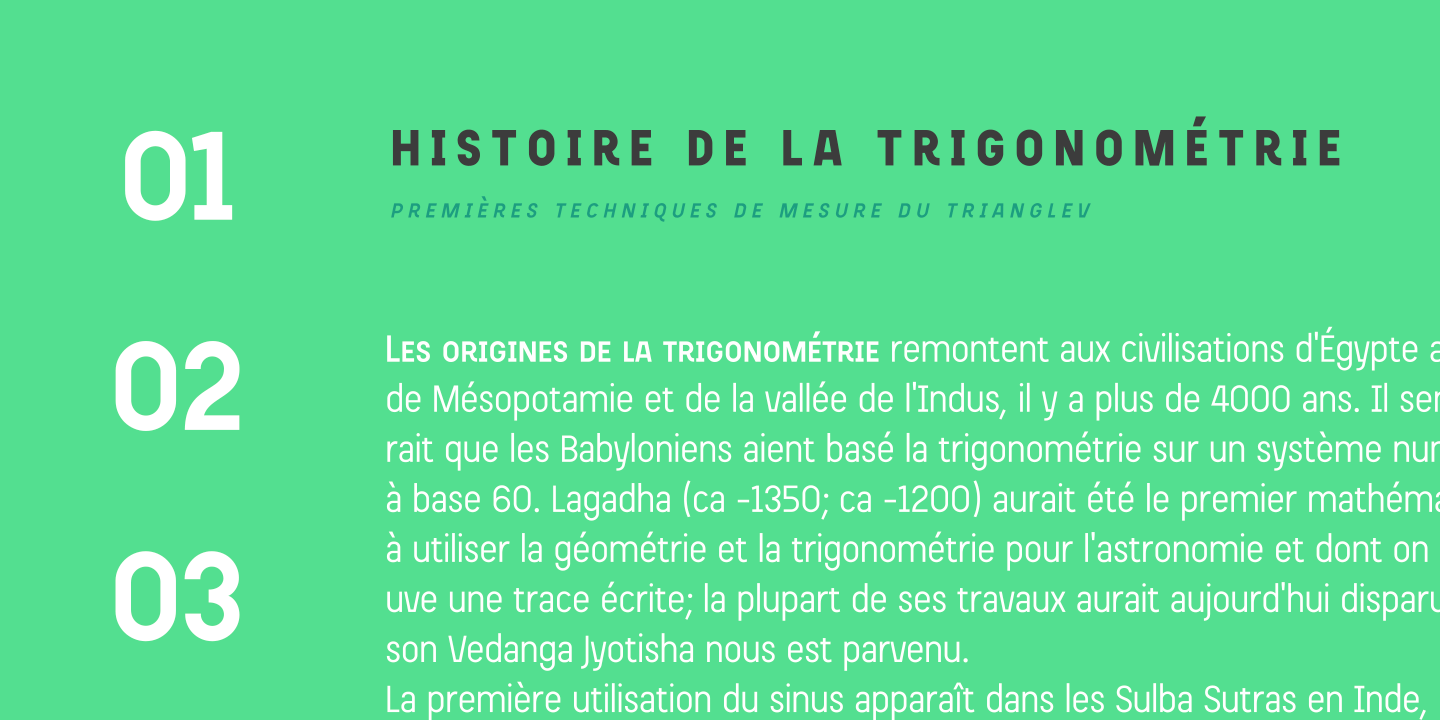
Beauchef Font is perfect for elegant French restaurant branding, sophisticated culinary school marketing, refined chef portfolio presentations, upscale bistro menu designs, gourmet food product packaging, prestigious culinary competition materials, distinguished cooking magazine layouts, exclusive fine dining establishments, luxury culinary tour promotions, and sophisticated gastronomic event invitations. Its culinary elegance character makes it ideal for projects requiring French culinary sophistication and gourmet dining authenticity.
What makes Beauchef Font exciting is its refined embodiment of French culinary artistry and gastronomic elegance with sophisticated letterforms and chef-inspired characteristics that capture the essence of haute cuisine and culinary excellence. The font features elegant proportions, culinary-inspired details, and refined character construction that create authentic gourmet atmosphere and French culinary appeal. Its sophisticated personality brings prestige and culinary credibility to contemporary designs while maintaining the clarity essential for culinary communications and gourmet presentations. The carefully crafted elegant elements ensure visual sophistication while preserving the distinctive character that embodies the essence of French cuisine and culinary excellence.
Beauchef Font comes in multiple culinary variations including Light, Regular, Medium, Bold, and Gourmet styles. Each family member maintains the distinctive culinary character while offering comprehensive flexibility for gastronomic typography and culinary brand system development. The complete font family includes alternate characters, culinary symbols, and elegant decorative elements that provide extensive tools for creating immersive culinary design experiences and authentic gourmet brand storytelling.
Whether you're developing culinary brands, gourmet restaurants, or sophisticated food service projects, Beauchef Font Free Download provides the gastronomic elegance needed to communicate with culinary enthusiasts and fine dining audiences who appreciate French cuisine and gourmet excellence. The font's refined appeal resonates with chefs, culinary professionals, and gourmet food enthusiasts seeking authentic culinary credibility and gastronomic sophistication. Its comprehensive character set includes culinary symbols and gourmet marks, making it perfect for creating complete culinary brand systems and memorable gastronomic storytelling across diverse food applications and cuisine-focused design projects that celebrate French culinary artistry and gourmet excellence.